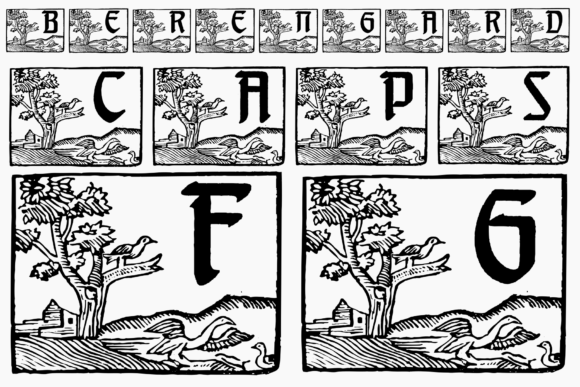
Berengard Caps Font: Elevate Your Designs with Timeless Elegance
In the realm of typography, certain fonts stand out for their unique blend of elegance, versatility, and timeless appeal. Berengard Caps is one such font that has captured the hearts of designers and typography enthusiasts alike. This lovely and timeless ornamental decorative font is the perfect choice for creating eye-catching logos, branding materials, and quotes that demand attention. What sets Berengard Caps apart is the unique and beautiful touch each letter brings to a design, making it come alive with an elegance that’s hard to match.
Overview of Berengard Caps Font
Berengard Caps is not just another font; it’s an experience. Its ornamental decorative style gives it a distinctive flair that can elevate any design project. Whether you’re working on a logo, a brand identity, or a quote that needs to stand out, Berengard Caps offers a level of sophistication and charm that’s unparalleled. The font’s design is meticulous, with every letter crafted to contribute to a cohesive and aesthetically pleasing visual statement.
The Versatility of Berengard Caps: Uses and Applications
One of the key strengths of Berengard Caps is its versatility. This font can be used across a wide range of design projects, including:
- Logo Design: The unique and beautiful touch of each letter makes Berengard Caps an excellent choice for logos that need to stand out.
- Branding: Consistency in branding is crucial, and Berengard Caps helps in creating a cohesive brand identity with its elegant and timeless appeal.
- Quotes and Sayings: Adding a touch of elegance to quotes and sayings, Berengard Caps makes them more impactful and visually appealing.
- Advertising and Marketing Materials: For any advertising or marketing material that needs to catch the eye, Berengard Caps is an excellent choice.
Design Features of Berengard Caps Font
Berengard Caps boasts several design features that make it a standout font:
- Unique Lettering: Each letter in Berengard Caps has a unique design, ensuring that your text does not look monotonous.
- Elegant and Timeless: The font exudes a sense of elegance and timelessness, making it suitable for projects that require a classic look.
- Ornamental Decorative Style: The ornamental decorative style of Berengard Caps adds a touch of sophistication to any design.
Berengard Caps vs. Other Ornamental Fonts
When compared to other ornamental fonts, Berengard Caps stands out for its:
- Distinctive Elegance: Berengard Caps offers a unique elegance that is hard to find in other ornamental fonts.
- Versatility: Its versatility allows it to be used in a wider range of projects compared to more specialized fonts.
- Timeless Appeal: Unlike trends-driven fonts, Berengard Caps has a timeless appeal that won’t go out of style.
Berengard Caps is more than just a font; it’s a design statement. Its unique blend of elegance, versatility, and timeless appeal makes it an excellent choice for designers looking to elevate their projects. Whether you’re creating a logo, branding materials, or simply want to add a touch of elegance to a quote, Berengard Caps offers a level of sophistication that’s hard to match. By incorporating Berengard Caps into your design toolkit, you’re equipping yourself with a powerful tool to make your designs come alive.